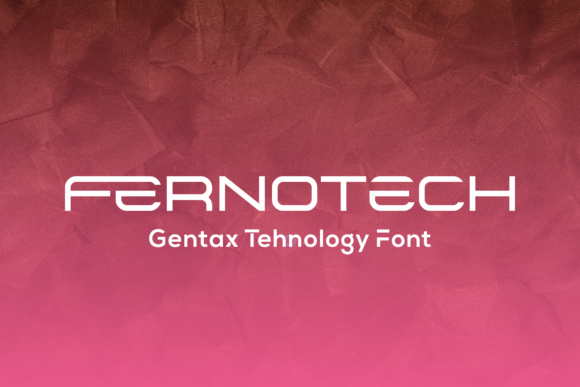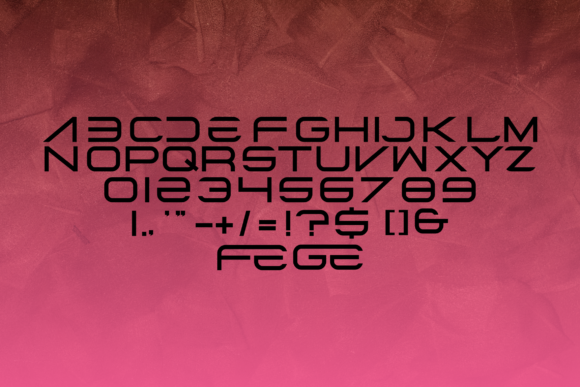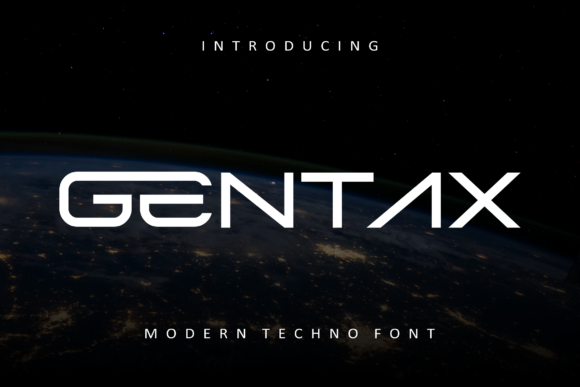
Introduction to Gentax Font
Gentax is a bold and authentic display font.
It is perfect for any branding project such as logos, t-shirt printing, creative products, and more It will look extraordinary in a variety of contexts.
Gentax Font offers exceptional quality and versatility, making it a valuable addition to your design toolkit. Whether you’re creating for personal projects or commercial use, Gentax Font delivers professional results.